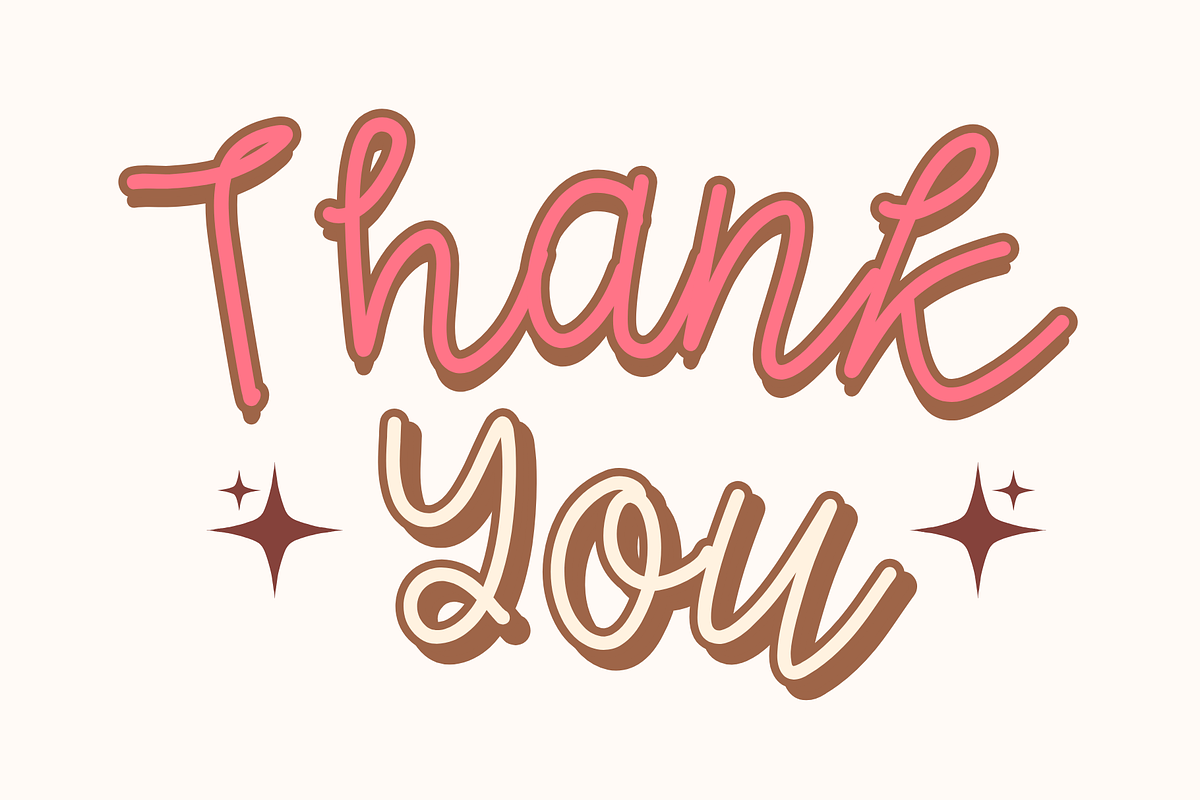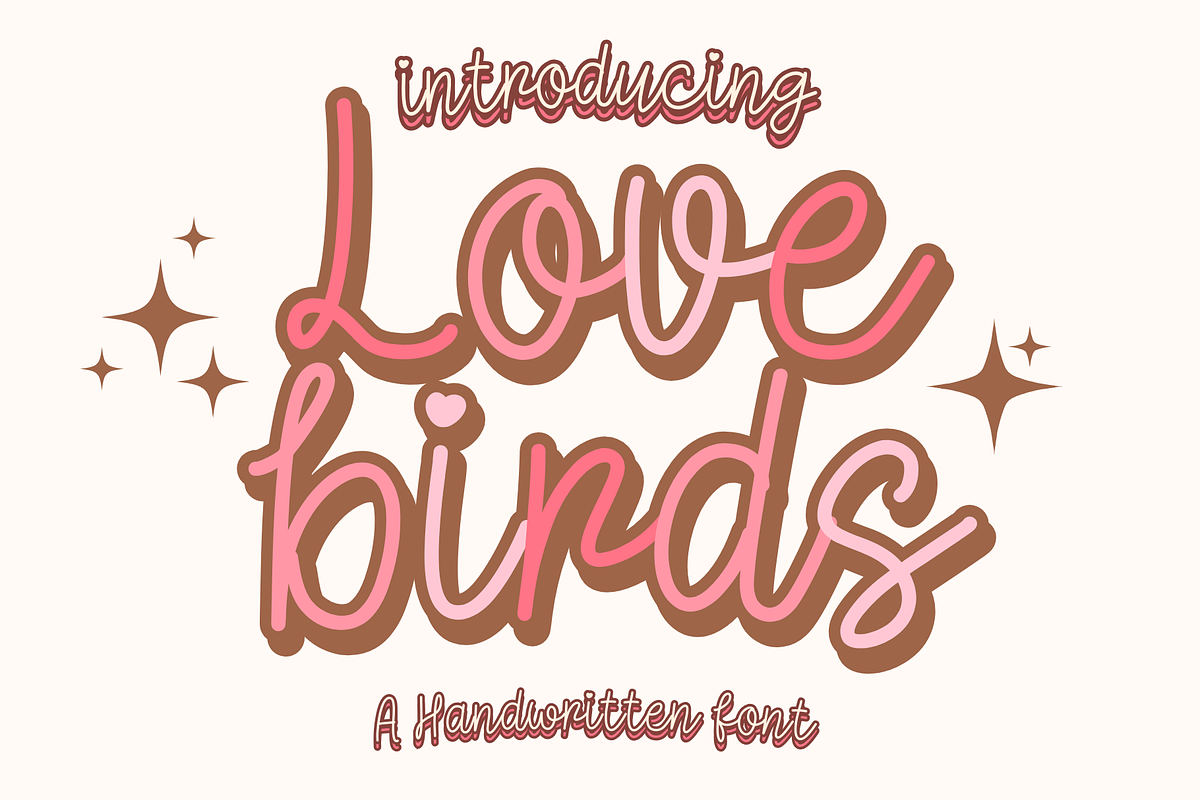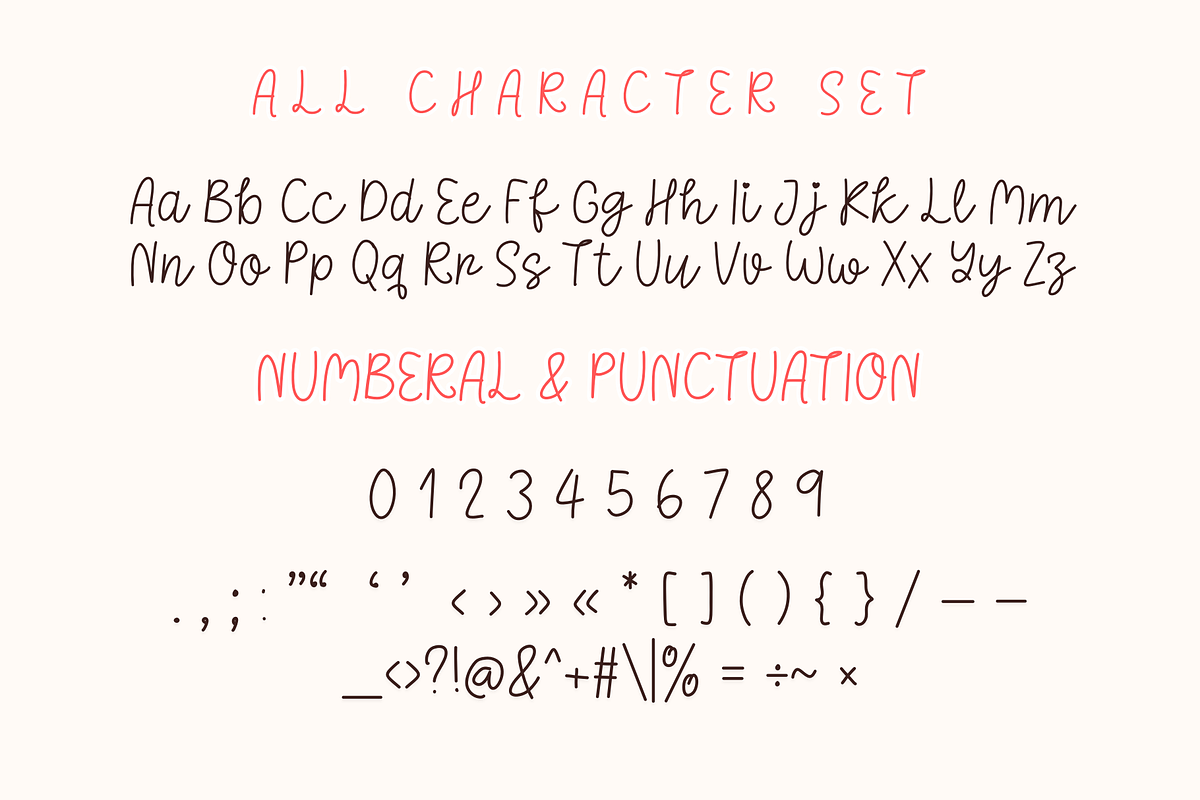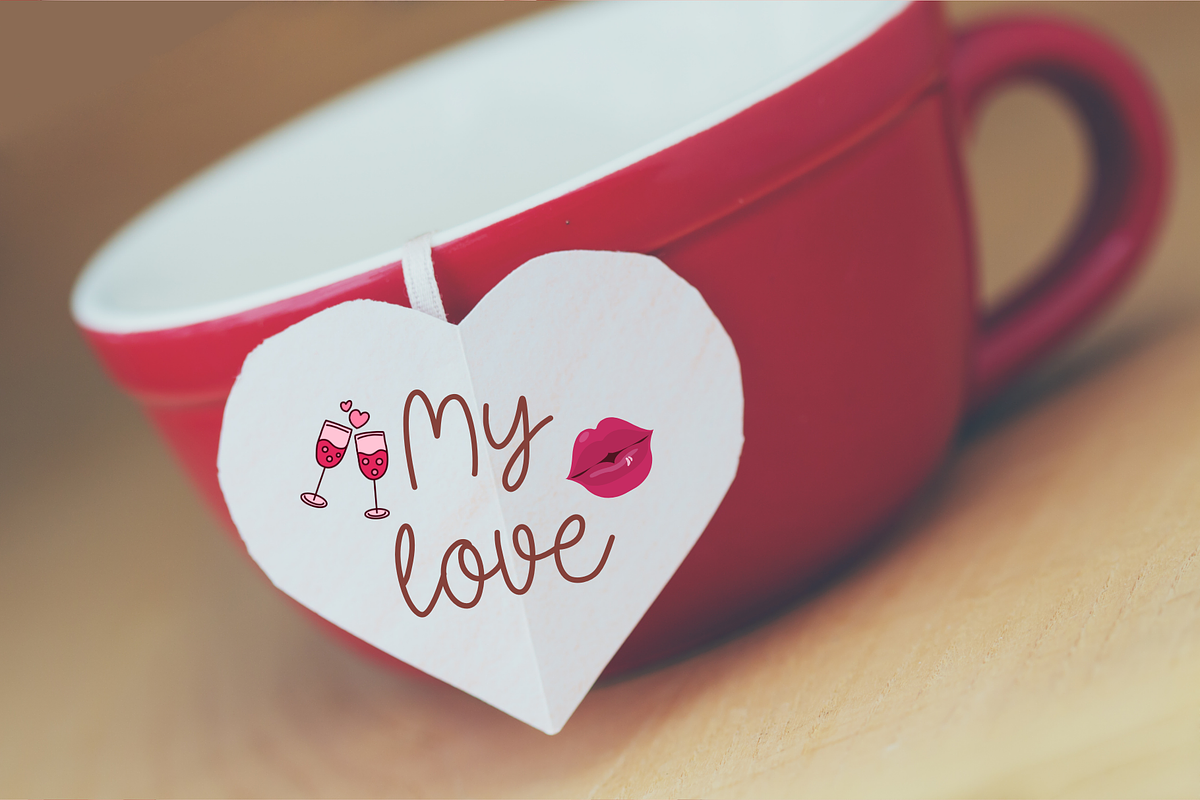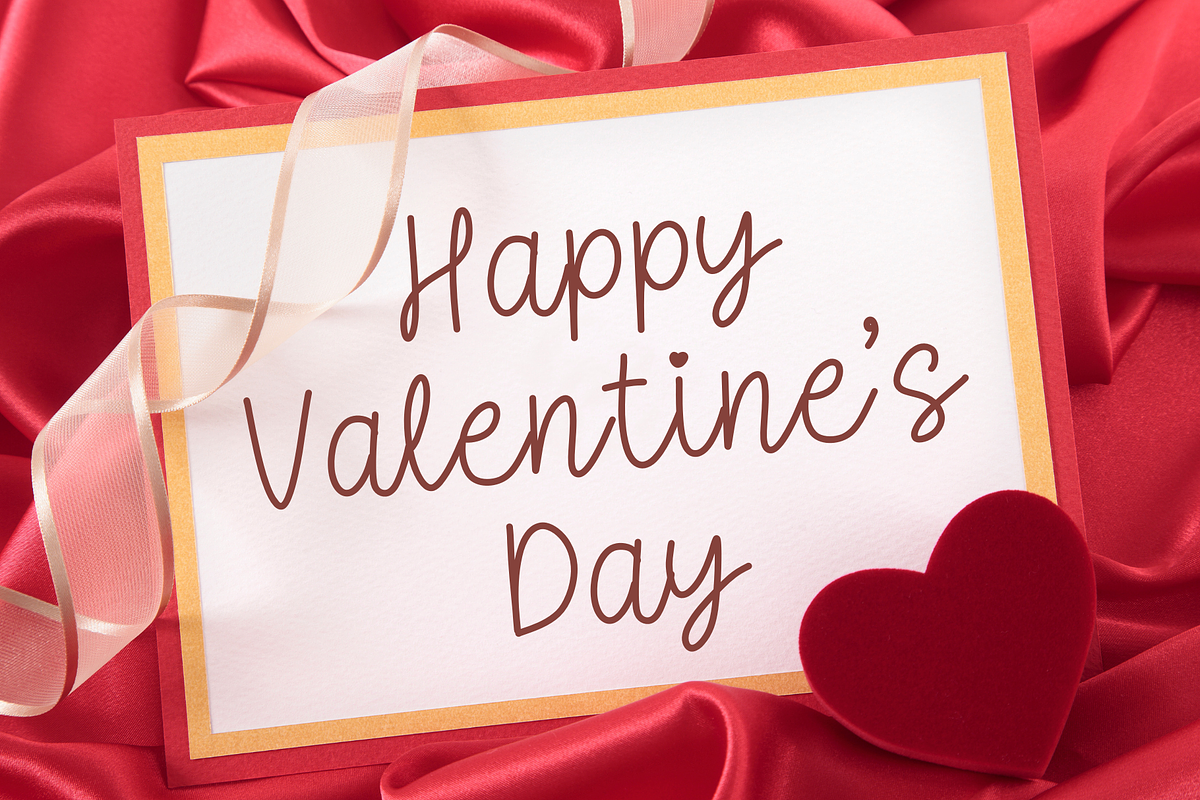
Lovebirds is a Valentine’s Day font
Lovebirds is a Valentine’s Day handwritten font. It embodies playfulness and authenticity and is the perfect choice for all your favorite projects, or even for blog posts, logos, branding, ads, invitations, greeting cards, planners, photo albums, decorations, and much more. Add it to any of your designs, and enjoy the results!